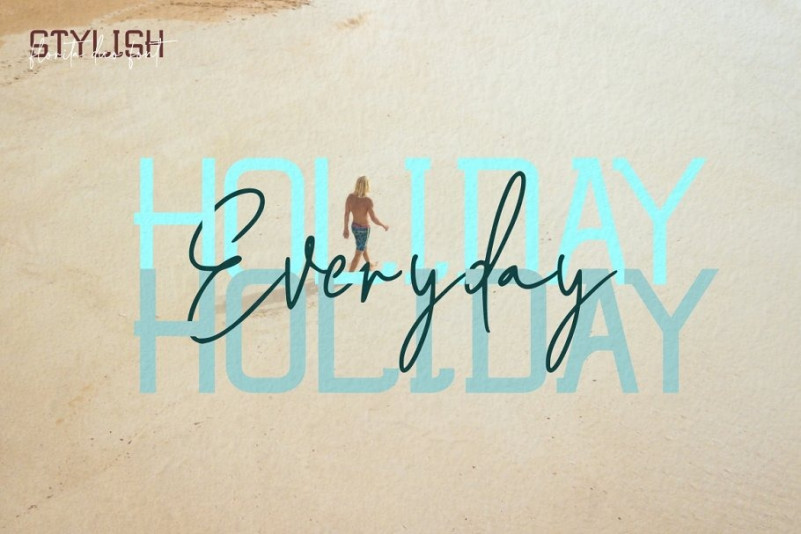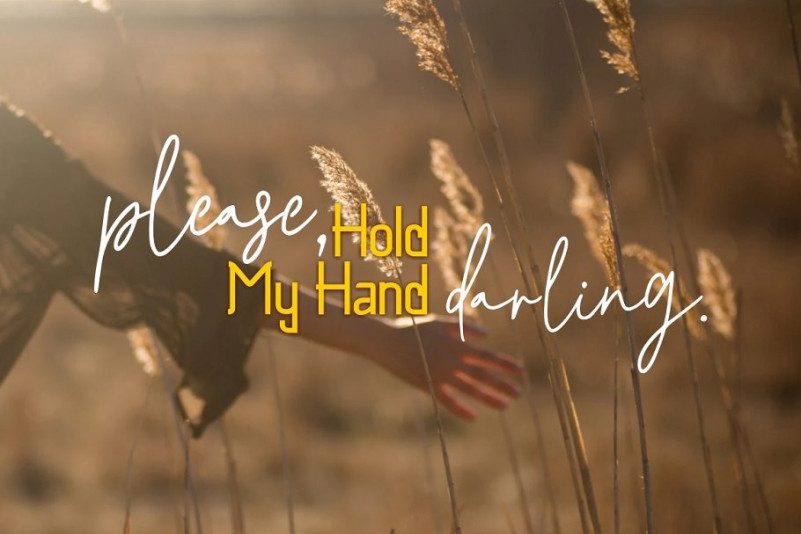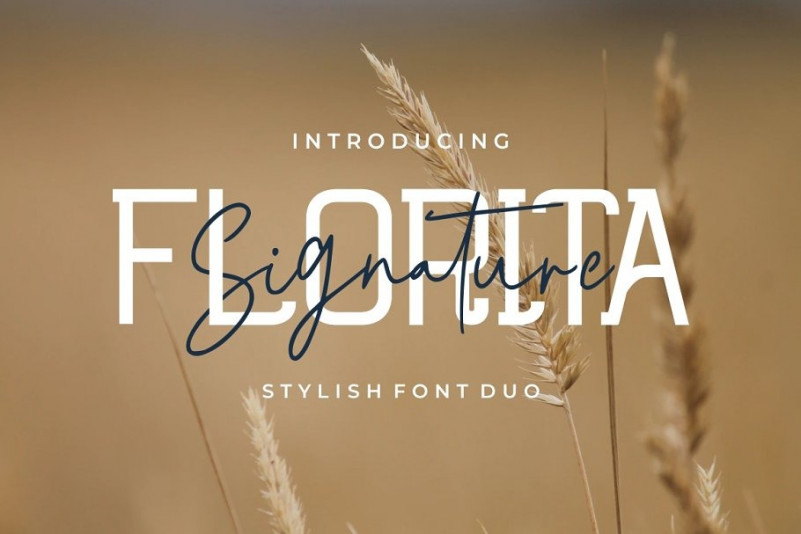
Florita Handwritten Font
Florita Font is a beautiful modern  sans serif and signature typeface. a perfect pair, can created to mix together. Florita is perfectly suited to signature, wedding, social media, stationery, logo, typography quotes, magazine or book cover, website header, clothing, branding, packaging design and more.